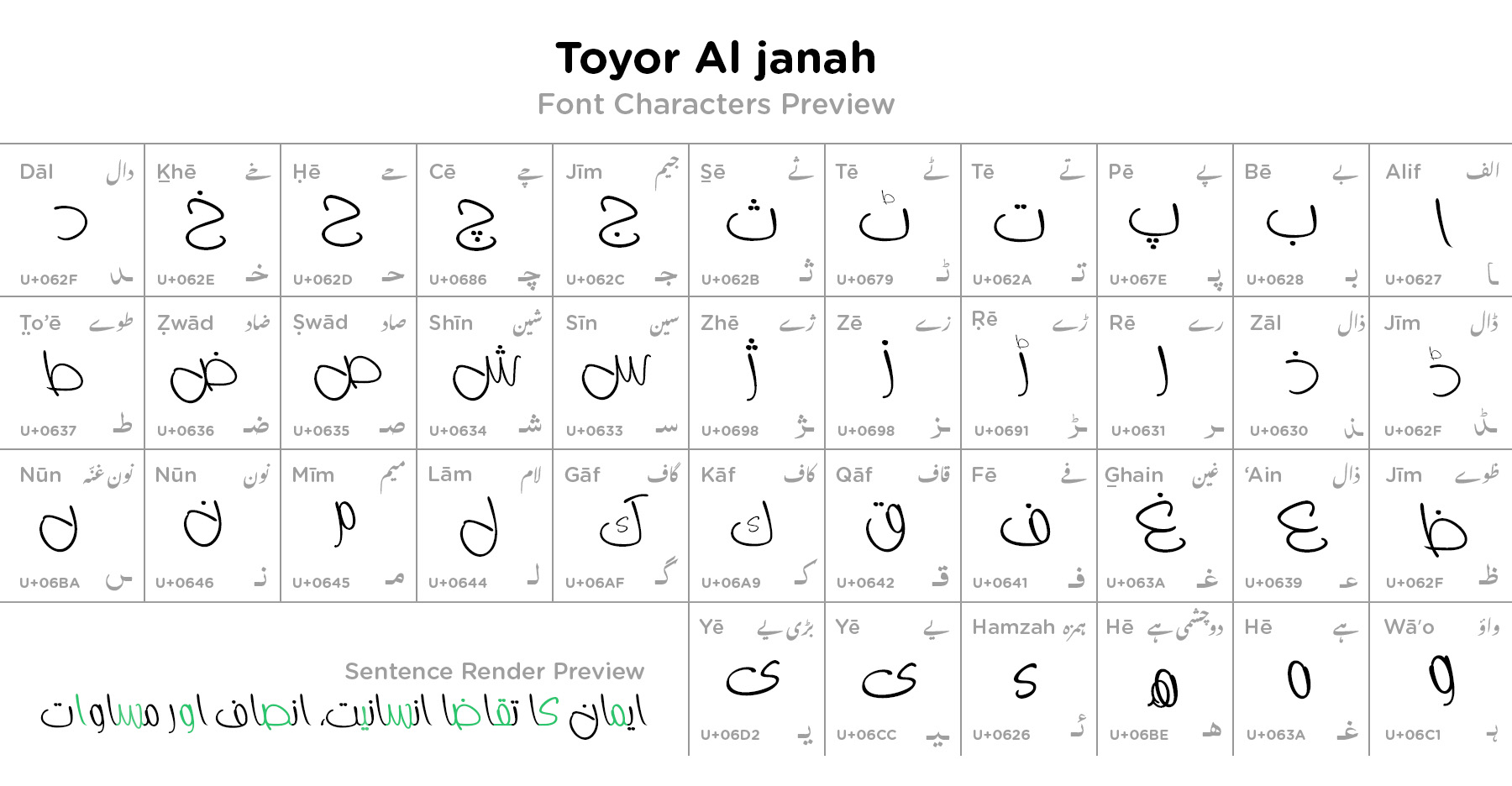
Toyor Al Janah is a playful yet elegant Arabic font with a thin ink-style appearance. It was released by ZakDesign in October 2017, which is a renowned font foundry. Drawing inspiration from Naskh's script, it features irregular cursive forms, rounded curves, and whimsical, curly terminals with a distinct tilt that makes it nearly an Italic font as well. With 580 characters and 589 glyphs, the font offers enough room to effortlessly fulfill various design needs across several platforms. Also, it supports Arabic, Urdu, Latin, Turkish, and Greek languages, offering versatility for various multilingual projects. It comes in two different weights including:
- Toyor Al Janah Regular
- Toyor Al Janah Fat
Its delicate strokes and consistent thin thickness make it suitable for short texts, though readability may diminish at smaller sizes. Despite this, the font's playful charm remains intact, enhanced by its untidy aesthetic and large circular negative spaces. Its irregular letter spacing adds to its quirky appeal, making it ideal for logos, invitations, creative posters, and book covers. Despite its informal appearance, Toyor Al Janah retains a sense of elegance, adding a touch of whimsy to any design project. Compatibility across Unicode blocks like Basic Latin and Arabic offers designers a range of possibilities for expressing creativity and playfulness in their work.